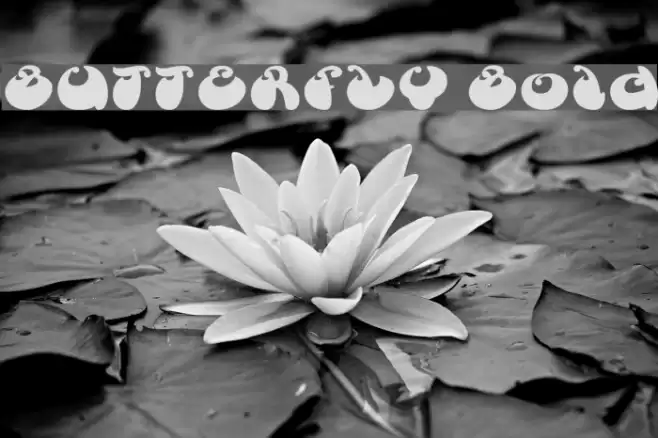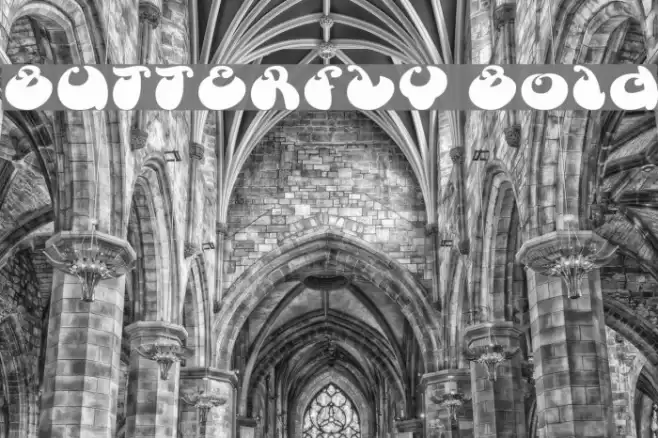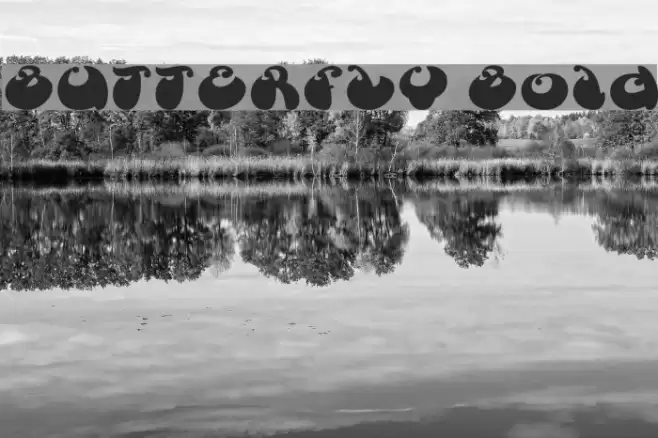
BUTTERFLY Bold Font
BUTTERFLY Bold Description
This font features a playful and bold design with a unique, bubbly appearance. Each character is crafted with a rounded, inflated style that gives it a whimsical and eye-catching look. The letters are thick and heavy, creating a strong visual impact. The font maintains a consistent weight throughout, with smooth curves and rounded edges that contribute to its friendly and approachable feel. The characters are closely spaced, enhancing the compact and cohesive nature of the design. This font is ideal for projects that require a fun and lively aesthetic, making it perfect for children's books, playful branding, and creative posters.
A bold, playful font with a bubbly, rounded design from Uncategorized fonts.
- Proposed Projects: Children's books, playful branding, creative posters, party invitations.
- Character Spacing: Tight
- Overall Style: Playful, Whimsical